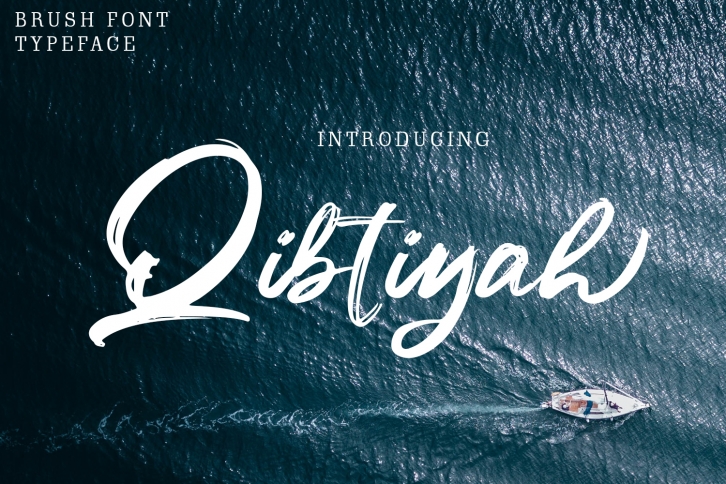
Qibtiyah Brush Font Download
Qibtiyah Brush is a beautiful font that was designed by Arendxstudio. It's a great choice for designers and creatives who need such a font. It was released on October 28, 2019 and the file size is 19.24 MB. Qibtiyah Brush may give a more youthful, expressive and casual look to your project. It is a very beautiful, refined, elegant, and high-quality font.